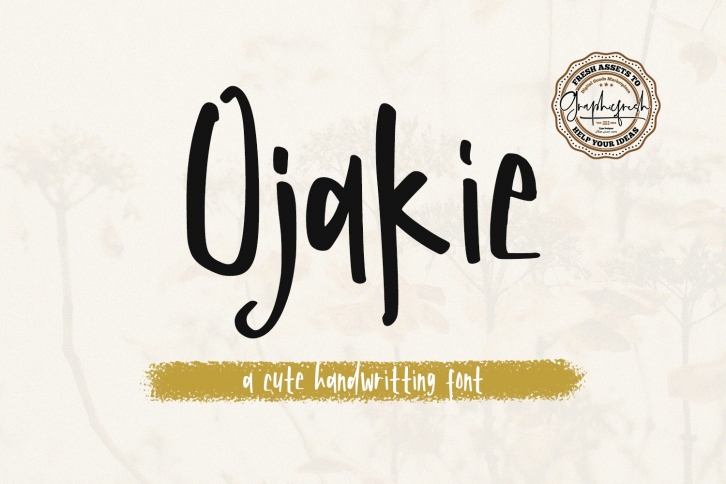
Ojakie is a trendy and unique font with an authentic style. It was designed by Graphicfresh and it's a great choice for creative people who need such a font. It was released on September 27, 2019 and the file size is 1.68 MB. Ojakie will add an organic vibe to any design idea!